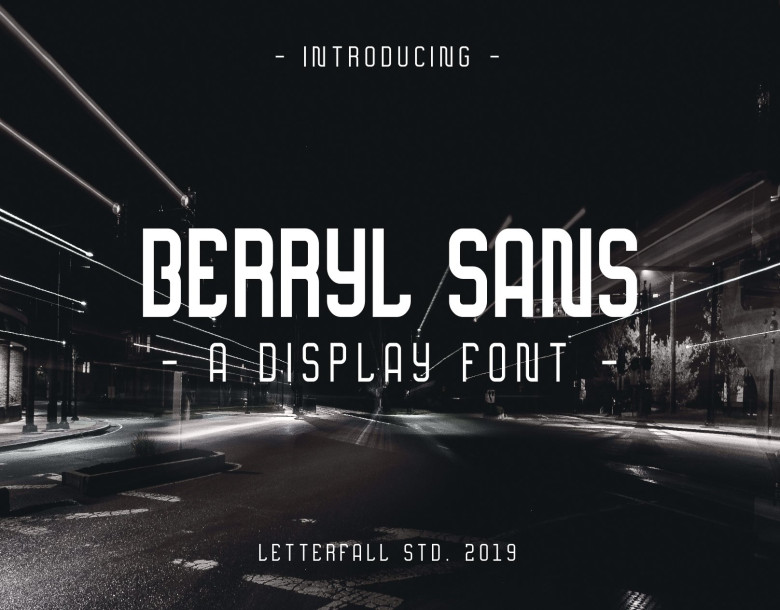
Berryl Sans Serif Font
Berryl Sans Serif Demo Font
Great, that was my initial feeling, it was a free font that I used it for. It’s a family of fonts sans serif. Introducing Berryl Font Family! Berryl designed by letterfallstd. The Berryl Sans is a strong and sophisticated sans serif family. It comes in a regular and bold style which can be combined perfectly, giving you the opportunity to create multiple unique designs in an instant.
It was inspired by diamonds, it’s sturdy uncompromising style is felt through the controlled letter forms and modern touches. A balance of hard lines and smooth curves. Each included can stand on its own, dynamic and authoritative in their own right.